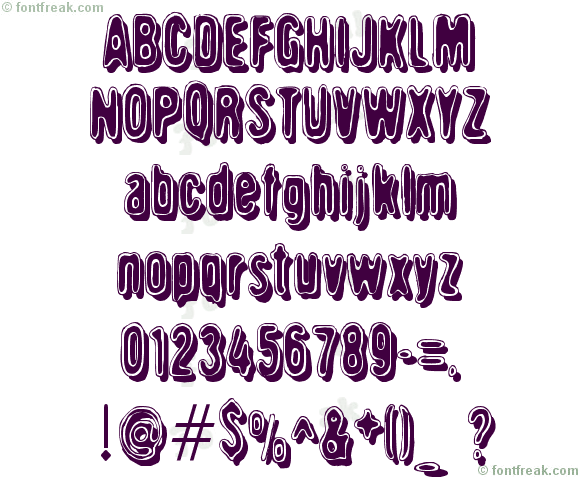
Griswold
Griswold, crafted by Tom Ledin in 2009, is a distinctive display font that flaunts a playful, decorative style. This unique typeface stands out with its bold stroke weight and charming, rounded forms, creating an inviting and whimsical appearance. The contrast in thickness between the outer edges and inner details adds depth, making it visually engaging. The letterforms feature a slight bounce, contributing to a sense of liveliness that is enhanced by the subtle decorative elements adorning each character.
The Griswold font is ideal for a variety of creative applications. Its vibrant personality makes it perfect for designing wedding invitations, where it can bring an element of fun and uniqueness to the event. Additionally, it works beautifully on movie posters, lending a retro vibe that captures attention and sparks interest. Restaurant menus can also benefit from Griswold, as its playful nature can evoke a sense of warmth and approachability, appealing to diners. Furthermore, small business owners can utilize this font in branding materials, ensuring their visual identity stands out in a competitive market.
What truly sets the Griswold font apart is its ability to evoke emotion and connection. Its playful design invites viewers to engage with the content, making it an excellent choice for anyone looking to create memorable visual experiences. Whether for personal or professional use, this font is sure to leave a lasting impression.